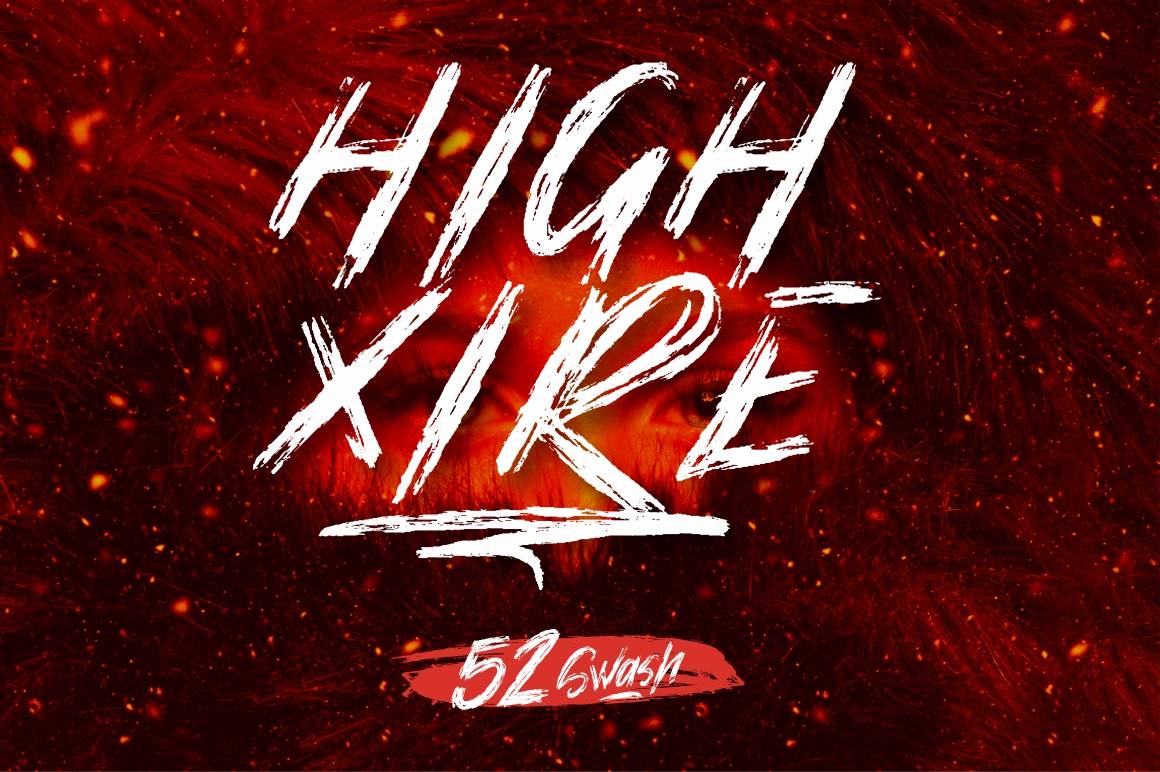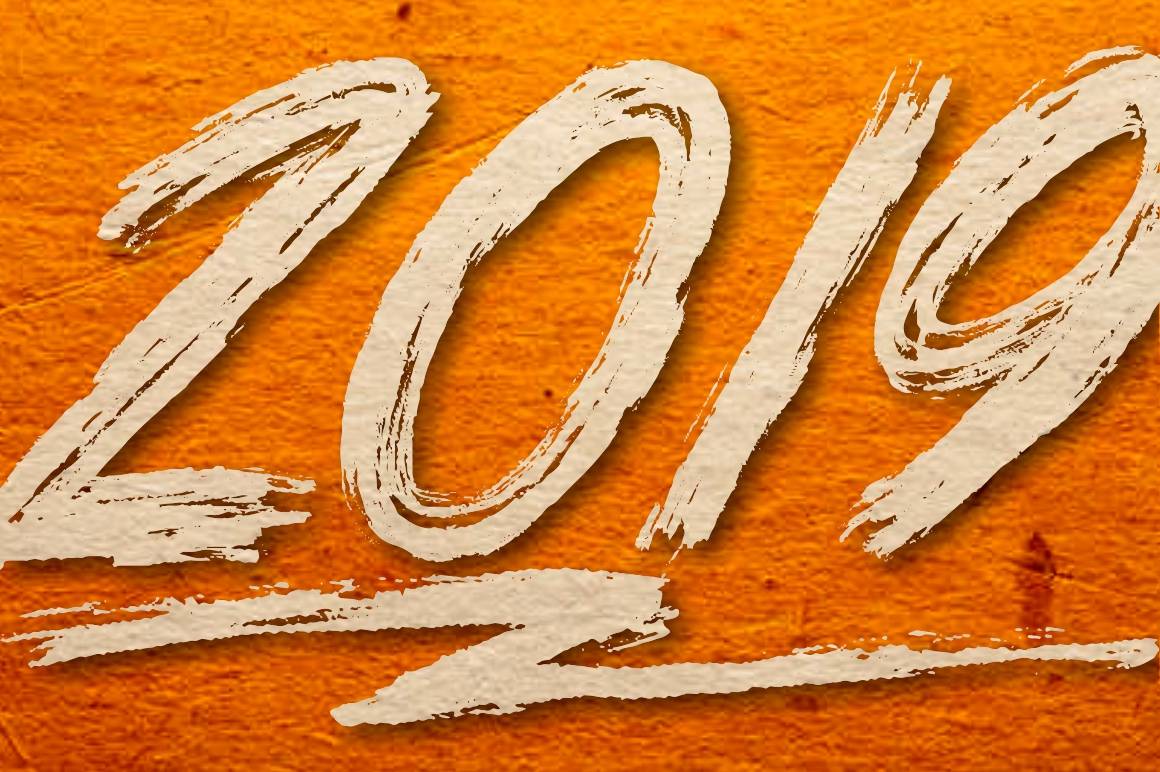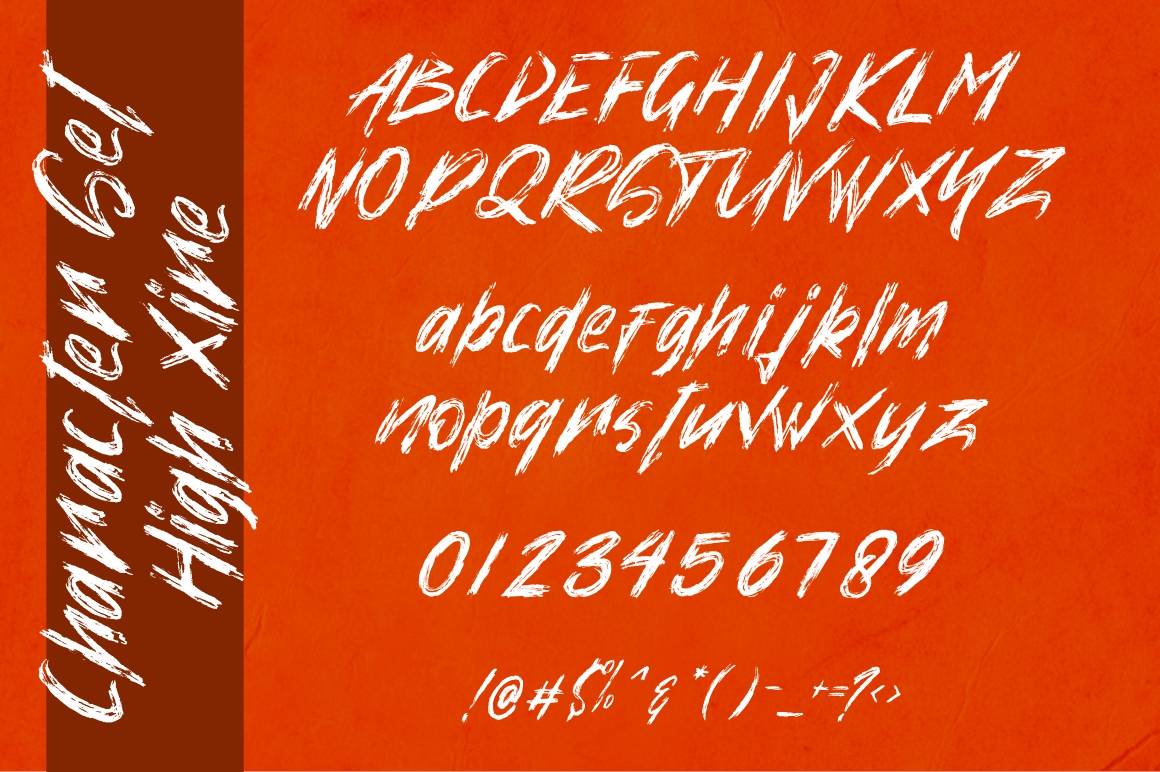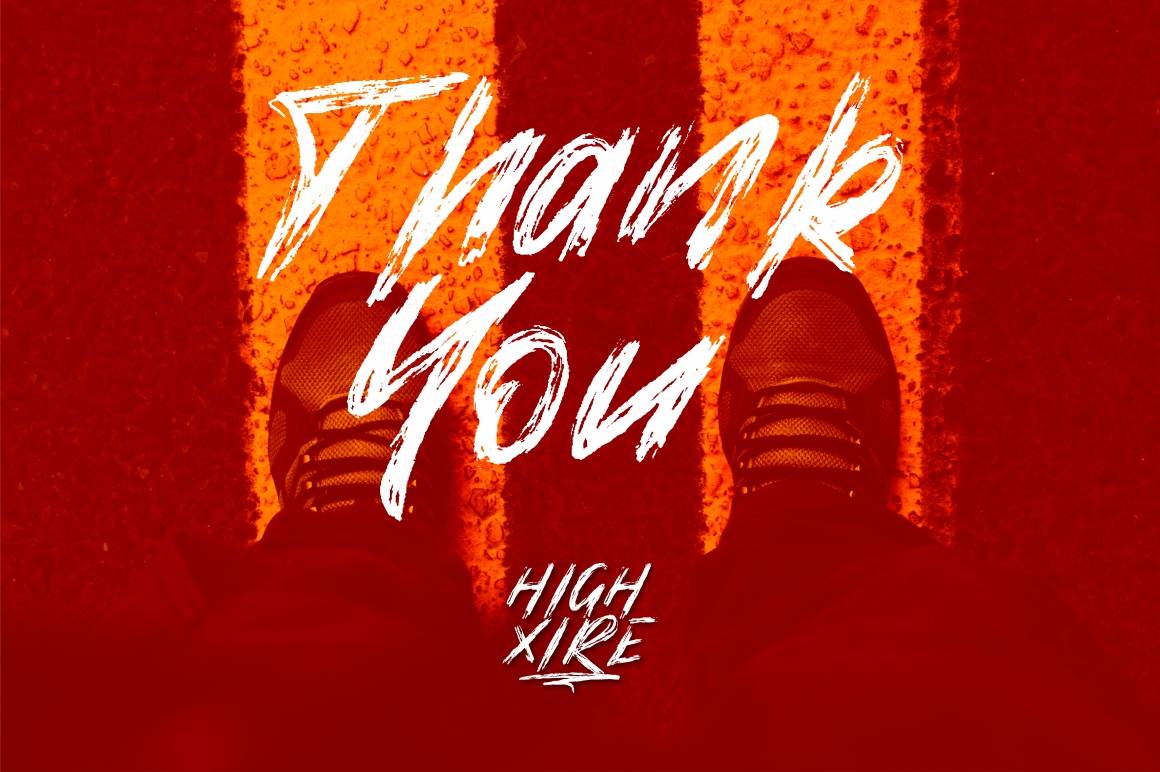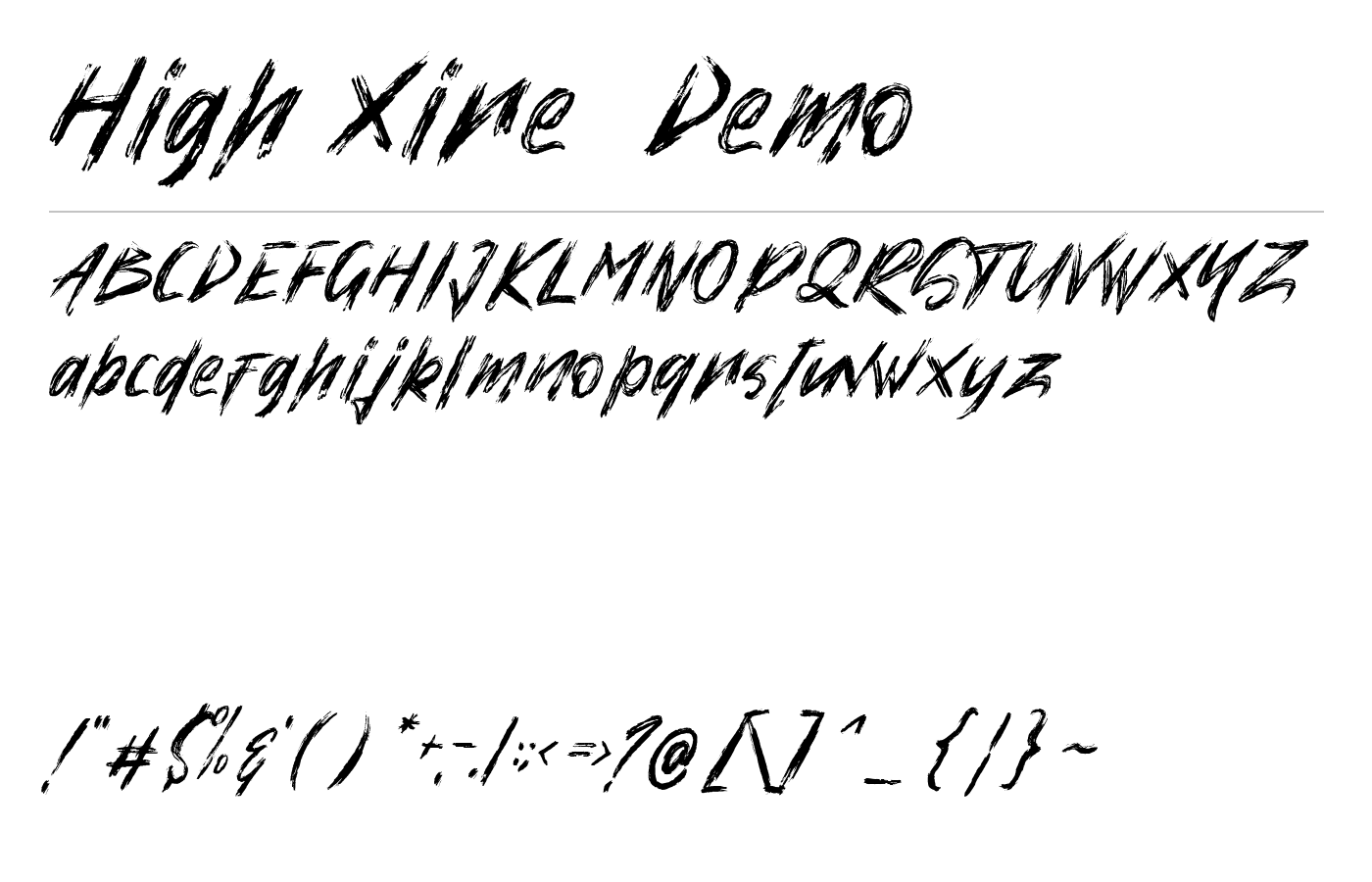
High Xire is a dynamic, brush-script font with a bold, textured appearance that gives it an energetic and hand-painted feel. Its irregular strokes and lively, slightly condensed letterforms make it perfect for designs seeking a raw, expressive style, ideal for creative headlines, posters, and branding that wants a personal, artistic touch. This font’s spirited character shines in contexts where a casual, edgy vibe is desired.
High Xire Font